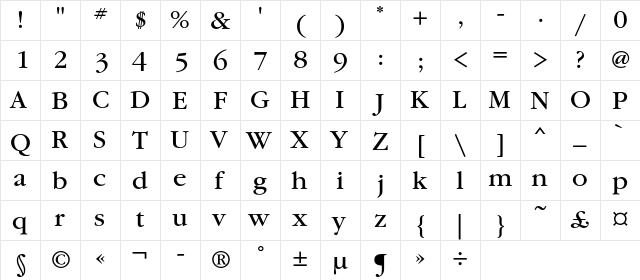
GaramondBookC Regular
Design Context for GaramondBookC Typeface
GaramondBookC takes a measured approach to typography — its balanced proportions and neutral character make it a reliable workhorse for both digital and print work.